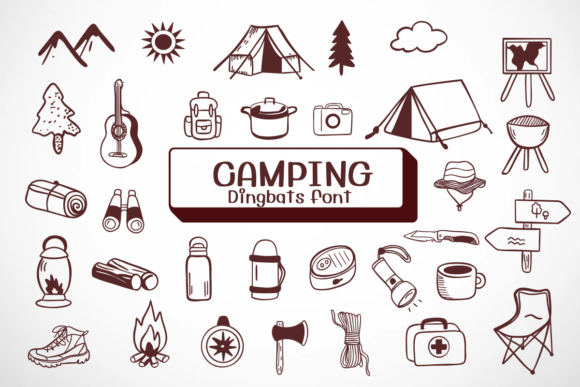
Camping Font: Elevate Your Creative Projects with a Sketched Twist
Are you a designer, crafter, or DIY enthusiast looking for a unique font to add a personal touch to your projects? Look no further than the Camping Font, a charming dingbats font with a sketched style that’s perfect for a wide range of creative endeavors. In this article, we’ll explore the features and benefits of the Camping Font, and show you how it can enhance your wedding invitations, DIY projects, crafts, decorations, logos, and more.
What is Camping Font?
Camping Font is a dingbats font that features a delightful sketched style, reminiscent of hand-drawn illustrations. The font is designed to add a touch of whimsy and playfulness to your projects, making it ideal for crafters, designers, and DIY enthusiasts who want to create unique and eye-catching designs.
Key Features of Camping Font
- Sketched style: The Camping Font features a beautiful, hand-sketched style that’s perfect for adding a personal touch to your projects.
- Dingbats font: As a dingbats font, Camping Font includes a wide range of illustrations and symbols that can be used to enhance your designs.
- Versatile: The font is suitable for a wide range of creative projects, from wedding invitations and DIY crafts to decorations, logos, and more.
Creative Ways to Use Camping Font
The Camping Font is a versatile font that can be used in a wide range of creative projects. Here are some ideas to get you started:
Wedding Invitations
Add a personal touch to your wedding invitations with the Camping Font. The font’s sketched style and whimsical illustrations make it perfect for creating unique and eye-catching wedding invites.
DIY Crafts
The Camping Font is ideal for DIY crafters who want to add a personal touch to their projects. Use the font to create custom labels, signs, and decorations for your craft projects.
Decorations
Use the Camping Font to create custom decorations for your home or office. The font’s illustrations and symbols can be used to create unique wall art, garlands, and other decorative items.
Logos and Branding
The Camping Font can also be used to create custom logos and branding materials. The font’s unique style and illustrations make it perfect for businesses that want to stand out from the crowd.
Tips for Using Camping Font
Here are some tips for getting the most out of the Camping Font:
- Experiment with different sizes and colors: The Camping Font can be used in a variety of sizes and colors, so don’t be afraid to experiment and find the look that works best for your project.
- Combine with other fonts: The Camping Font can be paired with other fonts to create a unique and eye-catching design.
- Use the font’s illustrations and symbols: The Camping Font includes a wide range of illustrations and symbols, so be sure to use them to add visual interest to your designs.